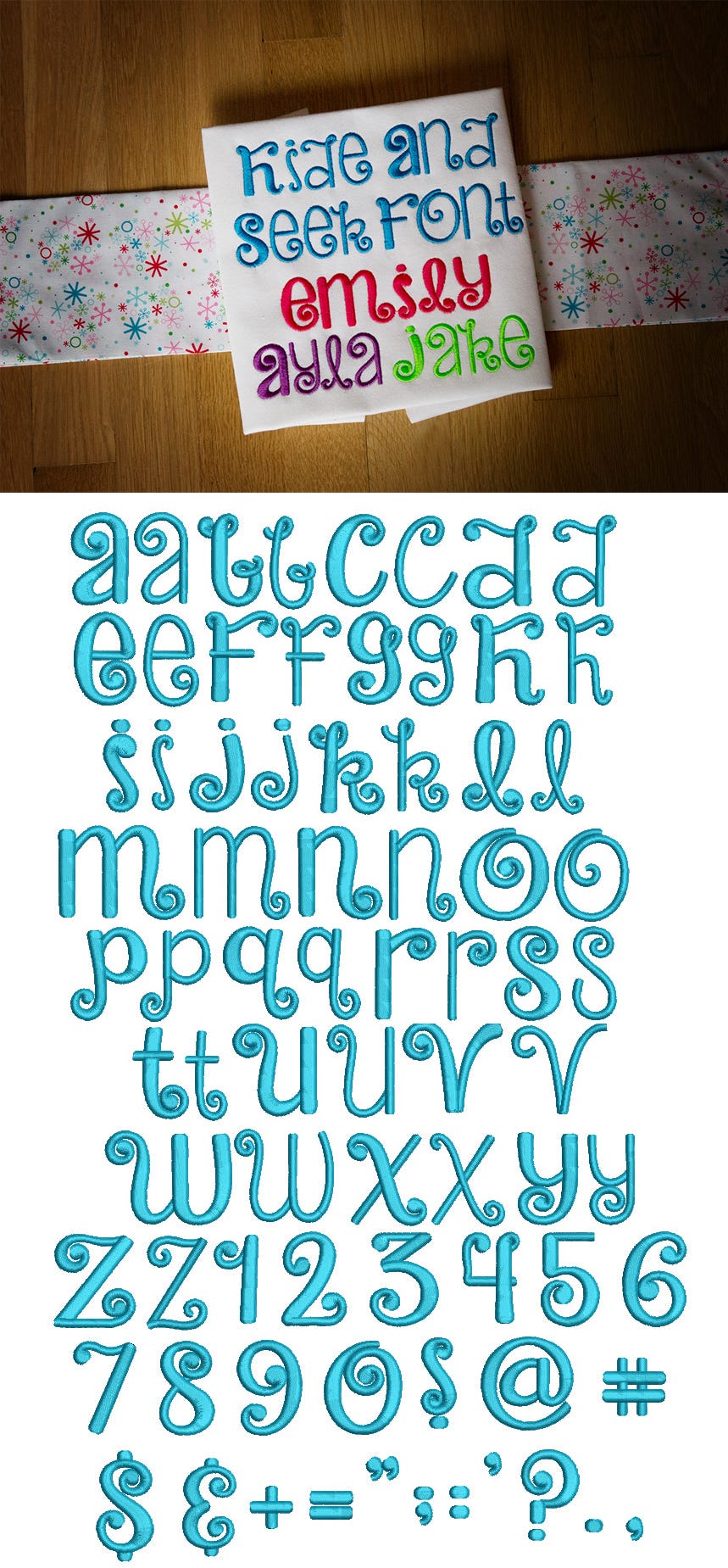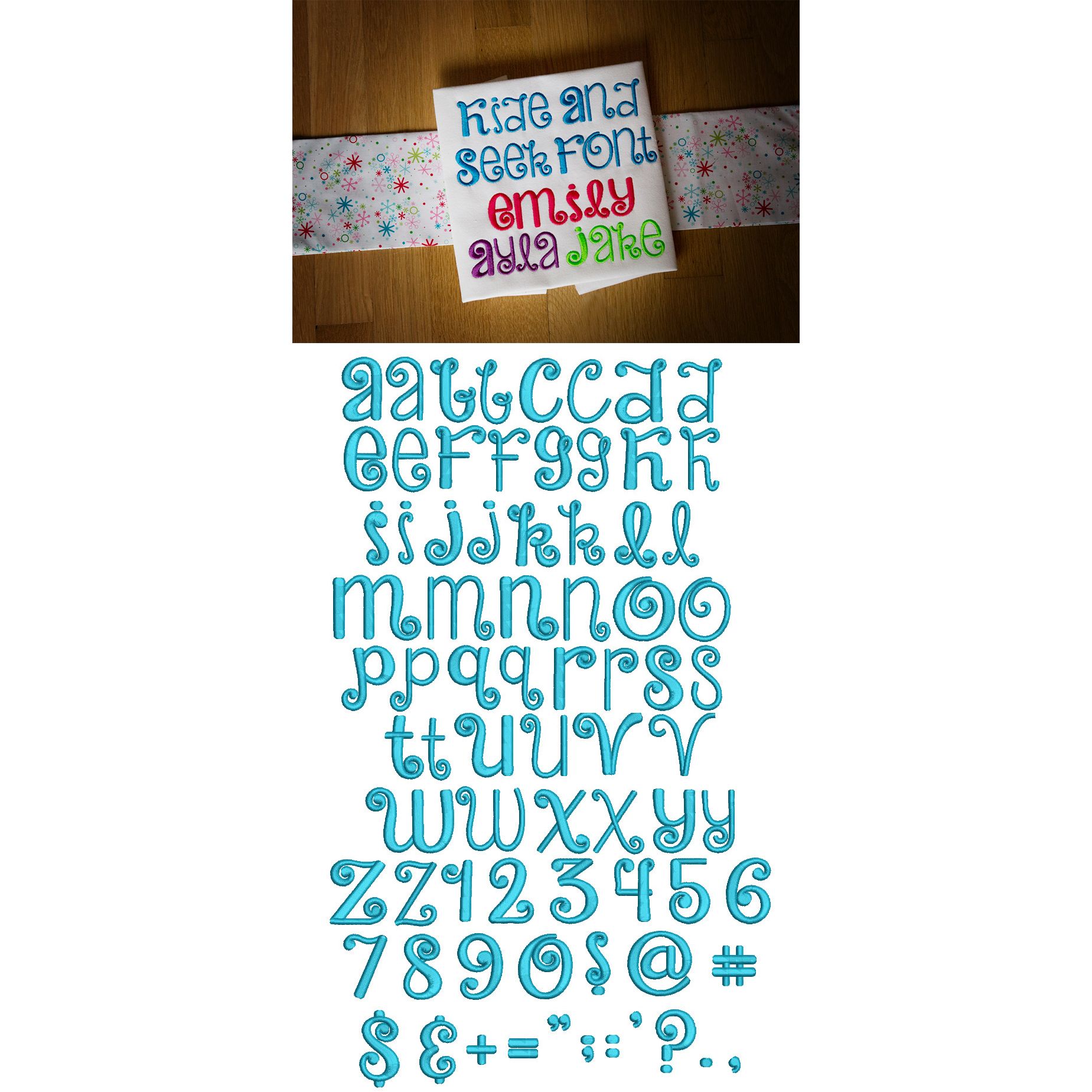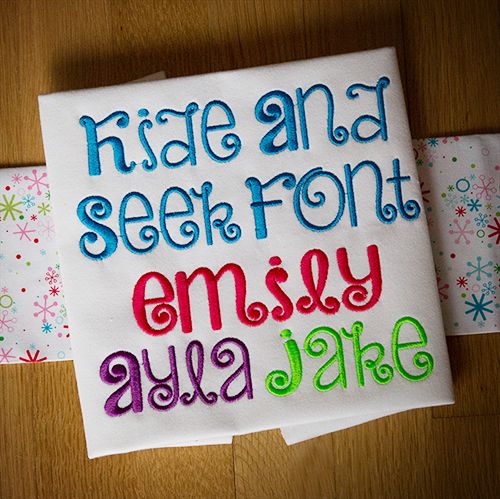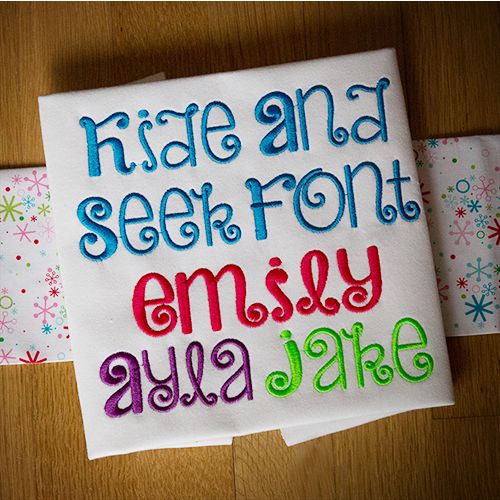
Hide and Seek Satin Stitch Embroidery Font
This is a super cute uni-case font that is curly and swirly and loads of fun. The "uppercase" version is a nice thick, bold rendition, while the "lowercase" version is the thinner version. Mix and match for some great looks! All of our fonts are 100% manually digitized to ensure the highest quality.